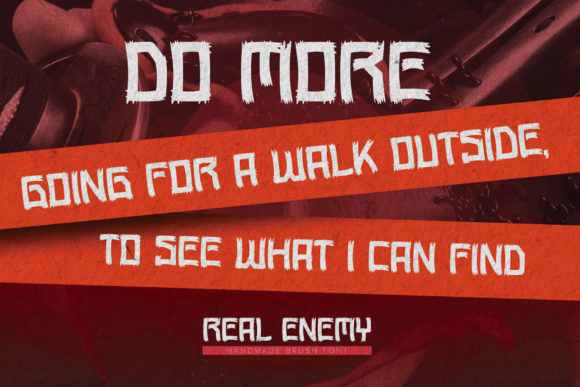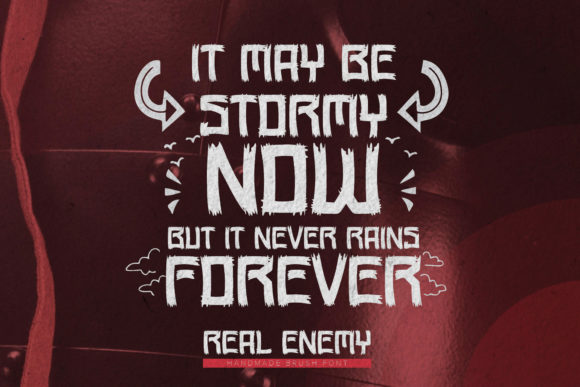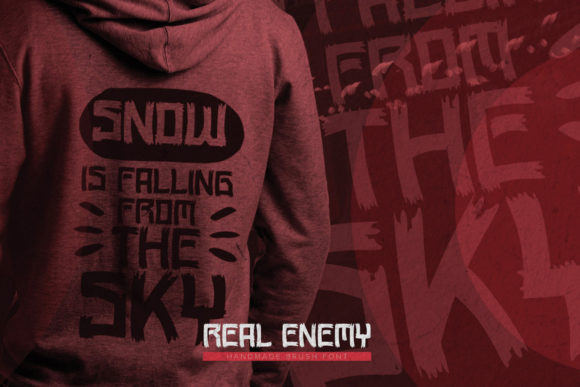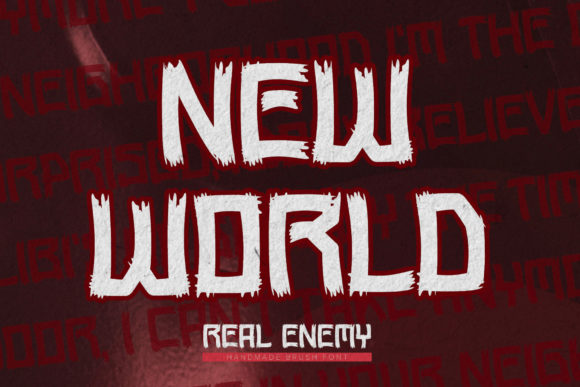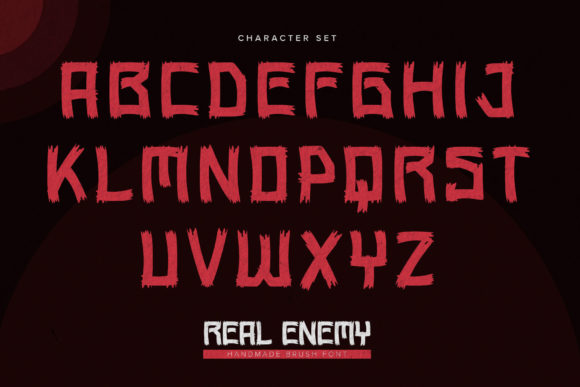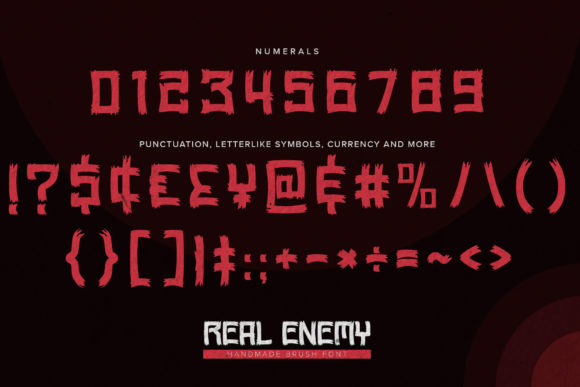
Introduction to Real Enemy Font Font
Fonts play a crucial role in design, and the Real Enemy Font font is a typeface that brings both character and versatility to any project. Whether you’re working on a branding project, a website, or a print design, the Real Enemy Font font offers a unique style that can elevate your work.
| 📌 Font Name | Real Enemy Font |
| 👤 Author | Gassstype Studio |
Real Enemy is an original handmade brush font, written casually and quickly.
That is why Real Enemy has a rough, authentic, and strong characteristic, more natural look Real Enemy is perfect for designs, branding projects, logo design, quotes product packaging, and another project that requires a strong brush font.
Key Features of Real Enemy Font Font
Why Choose Real Enemy Font Font?
The Real Enemy Font font is more than just a typeface – it’s a design tool that helps you communicate your message with style and clarity. Its unique character set and versatile design make it suitable for a wide range of applications, from elegant invitations to bold headlines.
With its carefully crafted letterforms and balanced proportions, the Real Enemy Font font ensures readability and visual appeal across all mediums.
What makes Real Enemy Font font special?
The Real Enemy Font font stands out with its unique design, exceptional readability, and versatility across various design applications.